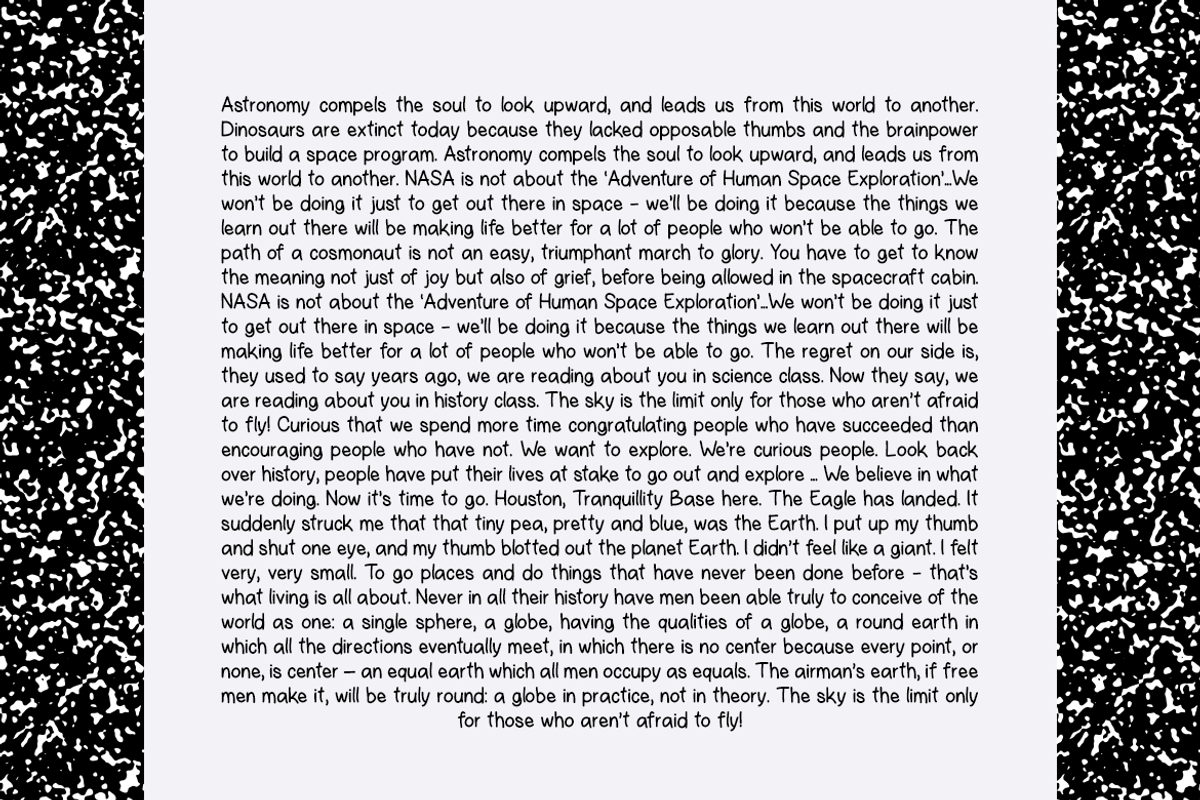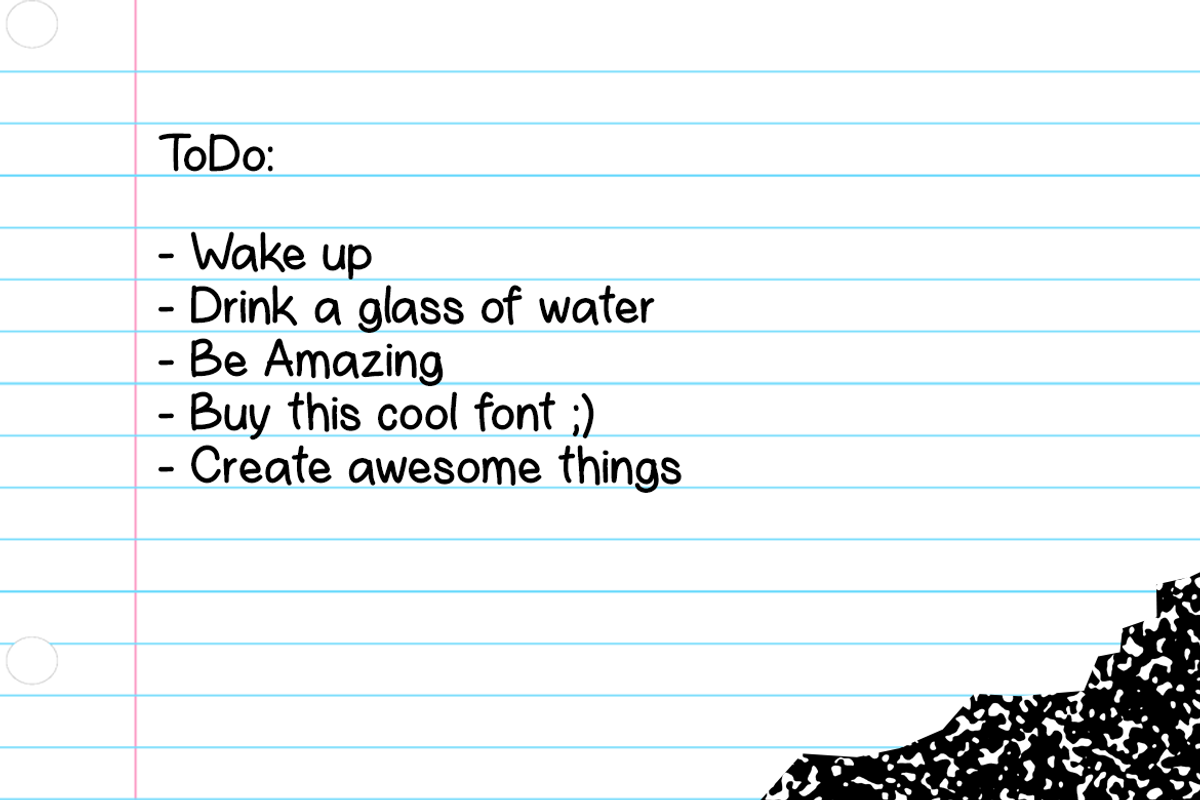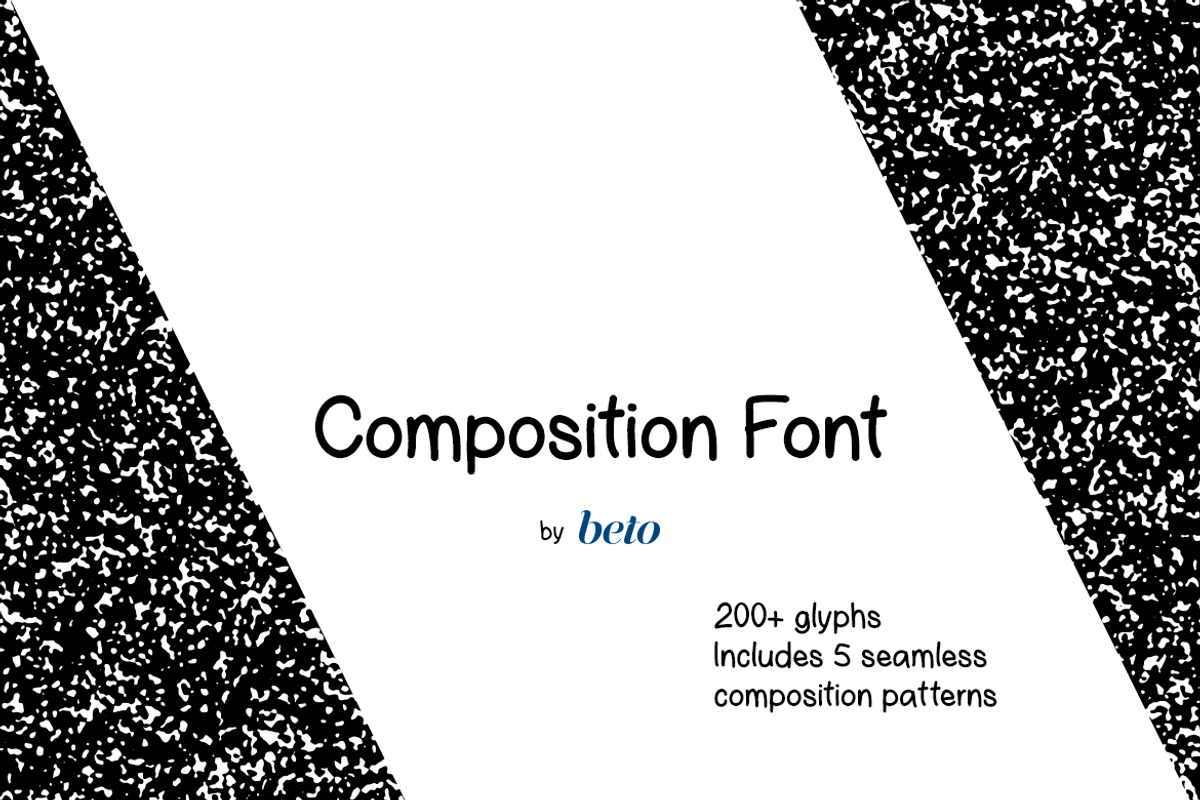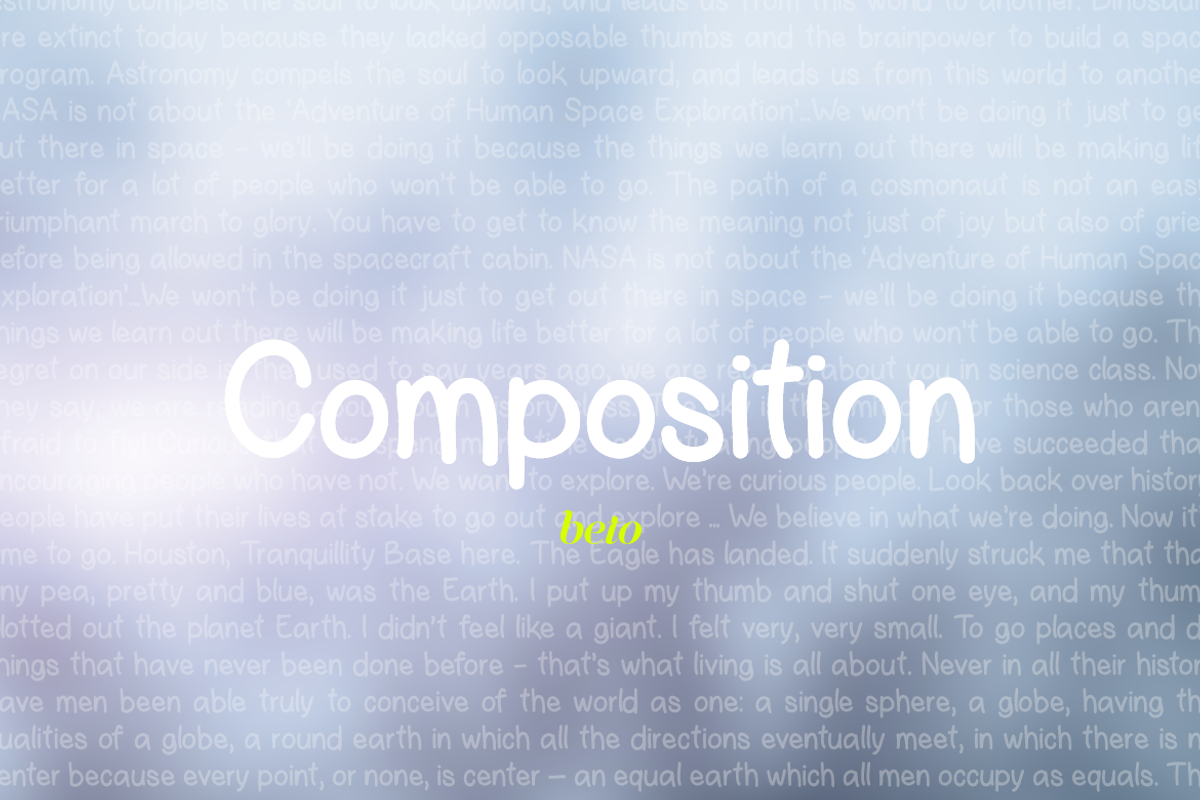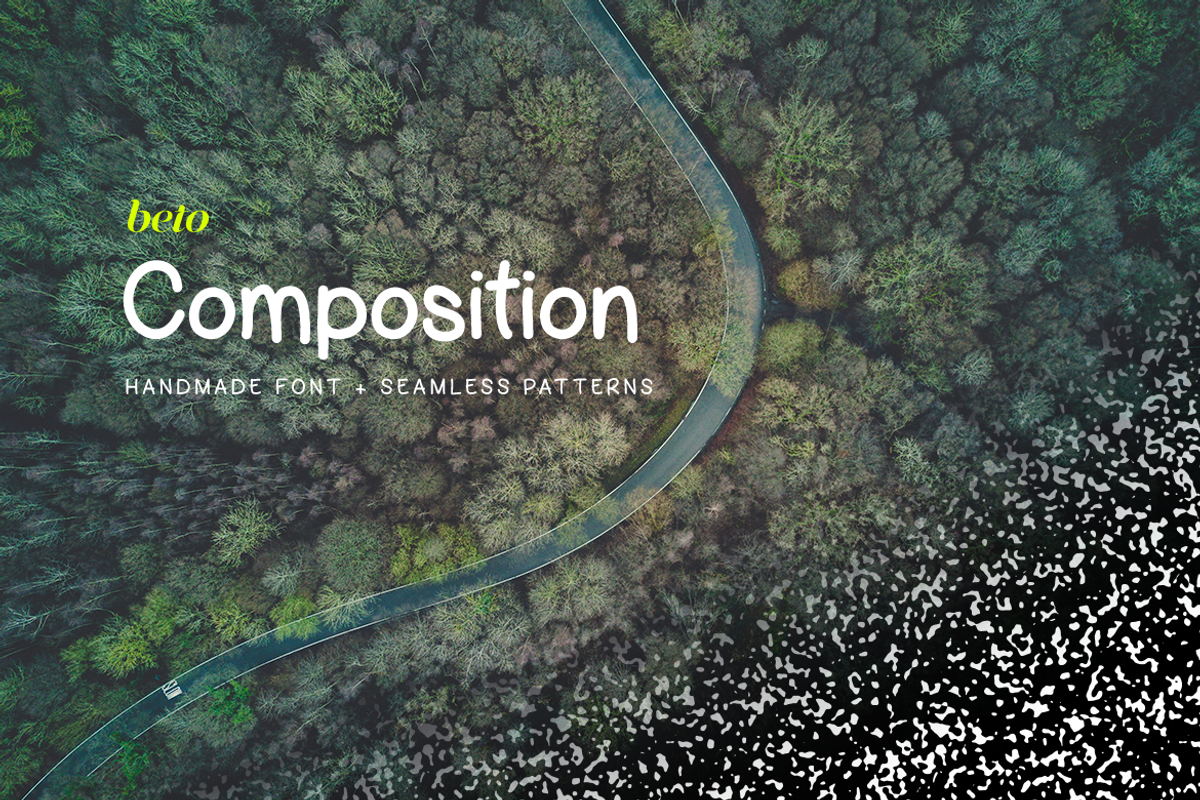
Composition Font + Extras
Composition Font + Extras by beto is a font selected for branding, posters, packaging, typography.
- It includes 5 seamless Composition Notebook patterns to add to the relaxed college style.
- More than 200 Glyphs
- Modern relaxed college note style handwritten sans serif
Composition Font + Extras by beto fits naturally into Branding, posters, packaging, typography.